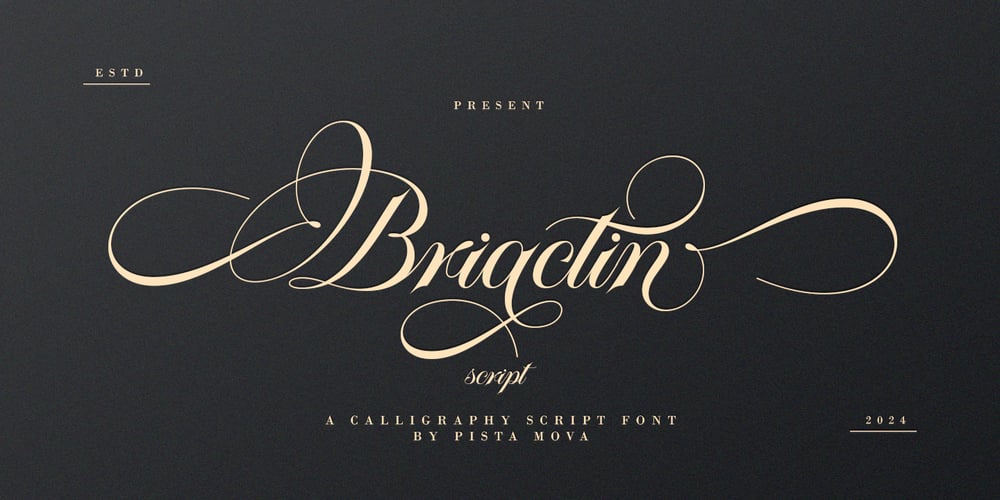
Briactin Font Family was designed by Haikal Juanda and published by Pista Mova. Briactin contains 1 styles and family package options. Hi designers, I just added new decorations to my font files. Please download again to beautify your design project, and don’t forget to give recommendations, it will definitely make me very happy.Briactin is a font that is Elegant and Soft on your eyes, I created it with my relaxed hands. designs classic fonts but has modern elements in it so it is very suitable for wedding media, book covers, greeting cards, logos, branding, business cards and certificates, even for any design work that requires a classic, formal or luxurious impression. Look.Give Briactin a try, enjoy the wealth of OpenType features and let its elegant fun and excitement make you happy and enhance your creativity! You can use this font very easily.Includes multilingual supportThere are many features in it. Contains a complete set of lowercase and uppercase letters, punctuation, numbers, and multilingual support. This font also includes several ligatures and alternative Stylistic Set styles for those of you who have software capable of working with OpenType (Corel Draw/Photoshop/Illustrator/InDesign).Files include:Briactin -OpenType FeaturesThank you for purchasing.!